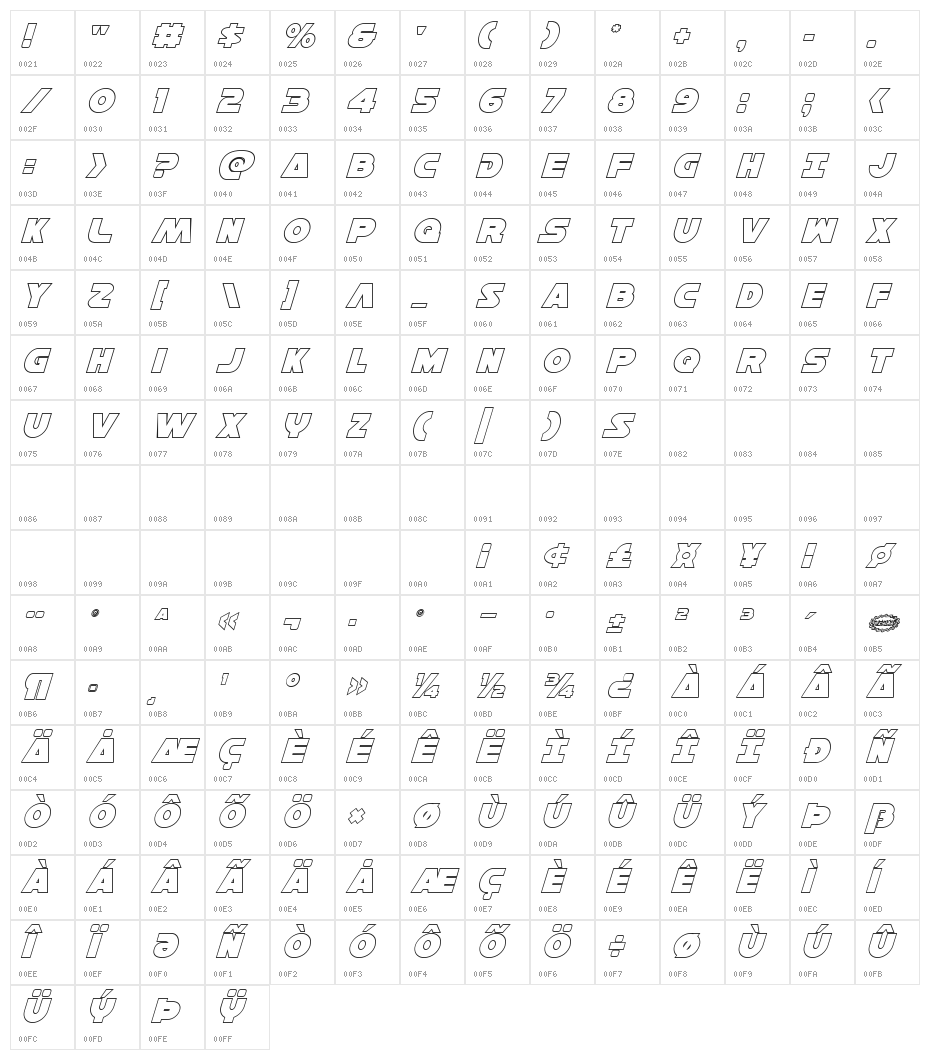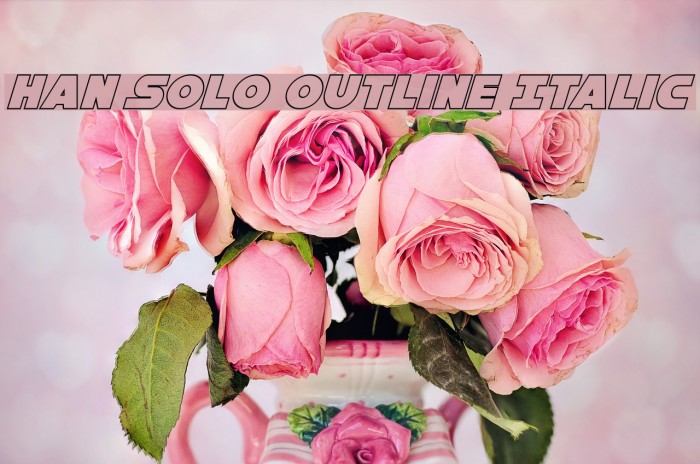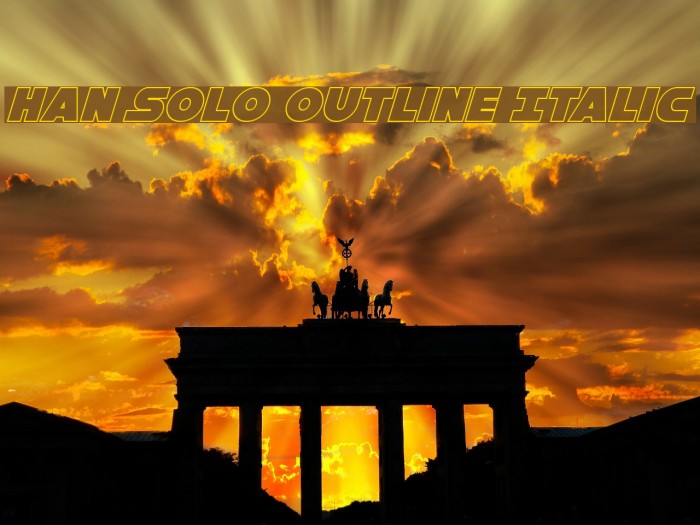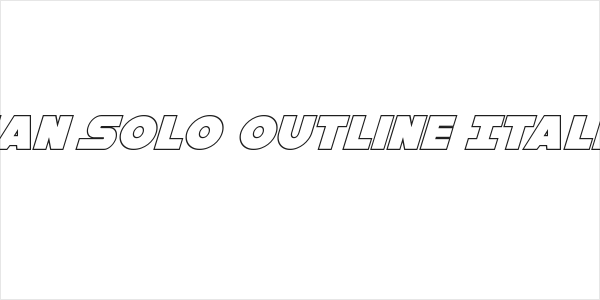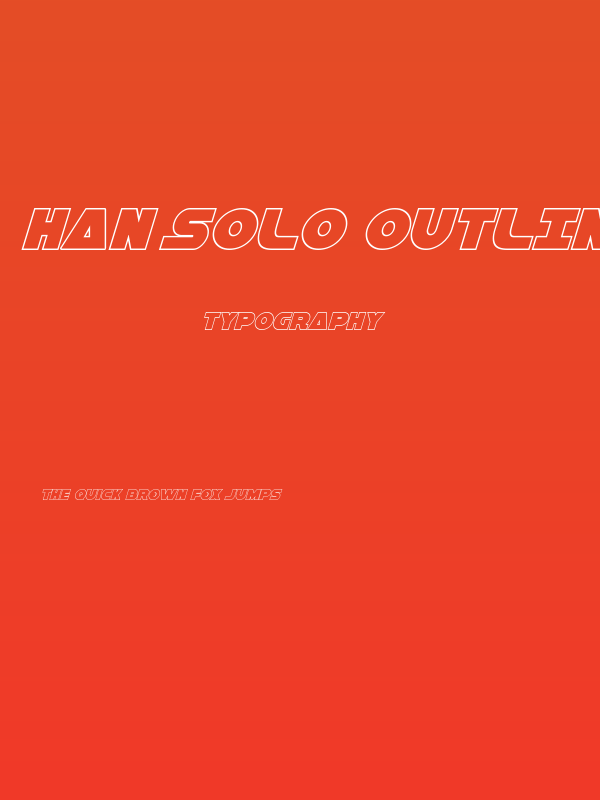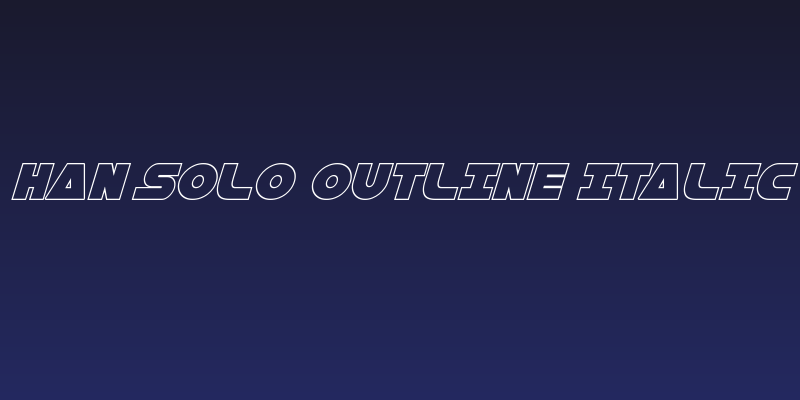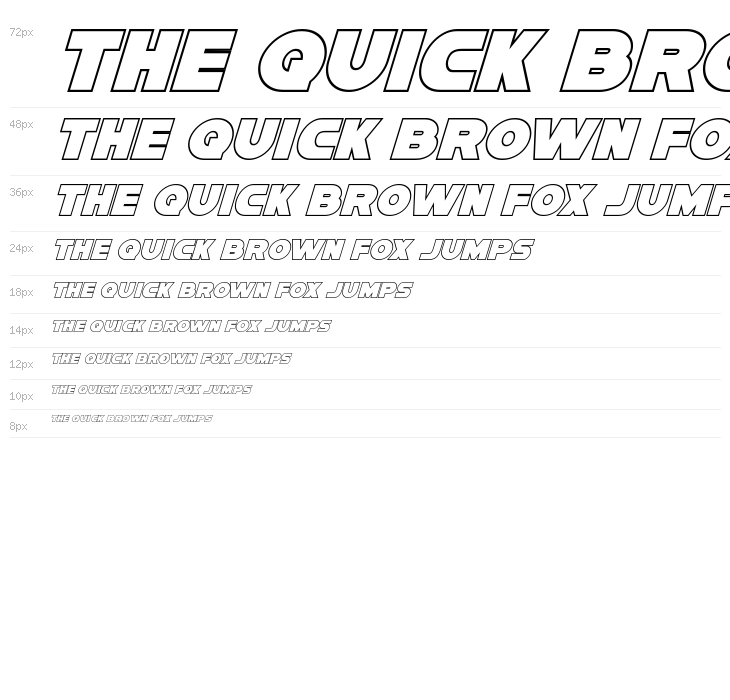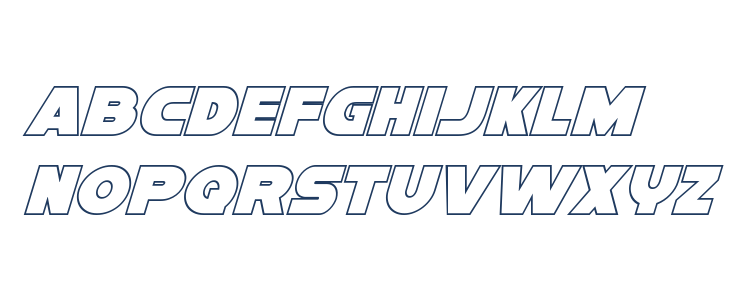
Han Solo Outline Italic Font
Han Solo Outline Italic Description
This font features a bold, outlined style with a futuristic and dynamic appearance. The characters are italicized, giving them a sense of motion and speed. The uppercase and lowercase letters maintain a consistent geometric structure, with sharp angles and clean lines. The numbers and special characters follow the same design principles, ensuring uniformity across all glyphs. The outline effect adds a layer of depth, making the font suitable for eye-catching designs. Its modern and sleek look is ideal for projects that require a bold statement.
| Proposed Projects | Ideal for sci-fi themed posters, video game titles, branding for tech companies, and futuristic product packaging. |